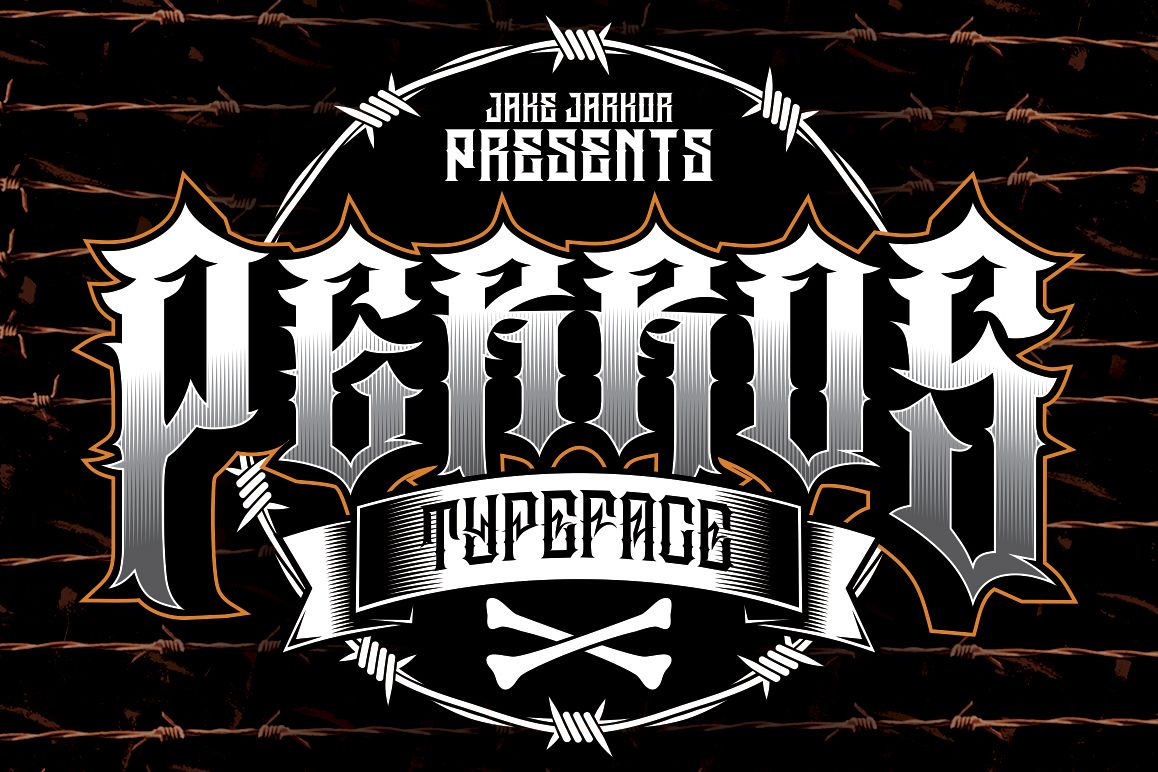
PERROS
Jake Jarkor Presents:
PERROS is a typeface inspired in tattoo letters, chicano culture and street art. It works well with normal size text, but it works even better for large displays, short words, or even just to incorporate a few or single characters in a design. Suitable for many creative products & tattoo designs, like posters, t-shirt, street wear, logo, signage, headlines, etc.
Jake Jarkor Presenta:
PERROS es una tipografía inspirada en el tatuaje, la cultura chicana y el arte de la calle. Funciona bien con el texto de tamaño normal, pero funciona incluso mejor para diseños de gran tamaño, palabras cortas, o incluso sólo para incorporar un par de caracteres individuales en el diseño. Es una tipografía muy conveniente para productos creativos y diseños para tatuajes, como carteles, playeras, logotipo, señalización, titulares, etc.